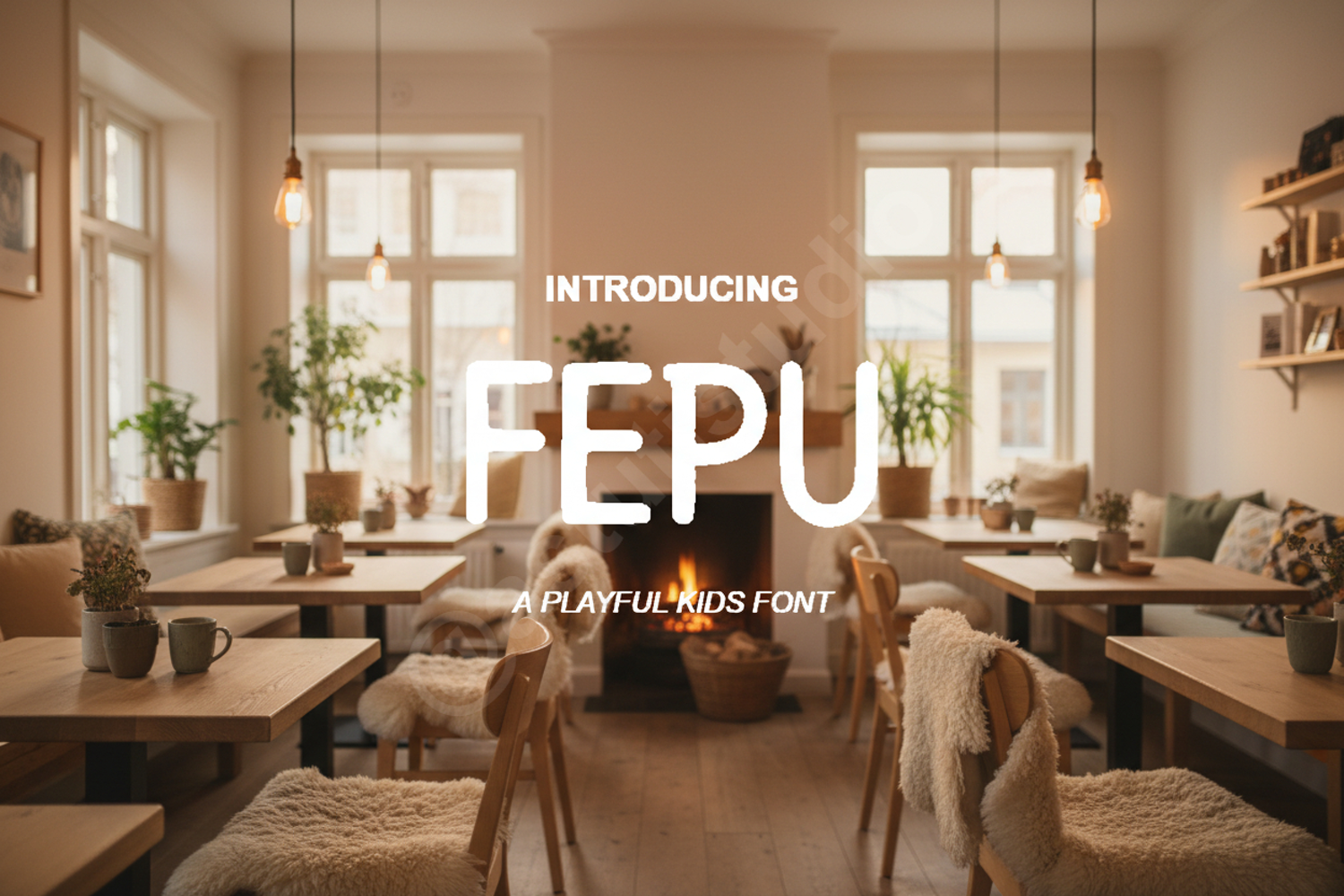
Fepu - Modern Geometric Sans Serif
Fepu
Elevate your design projects with Fepu, a premium geometric sans-serif font designed for clarity and modern sophistication. Fepu offers a perfect balance of architectural precision and approachable style, making it a versatile powerhouse for any creative toolkit. Whether you are building a brand from scratch or refining a high-end editorial layout, this font provides the professional finish your work deserves.